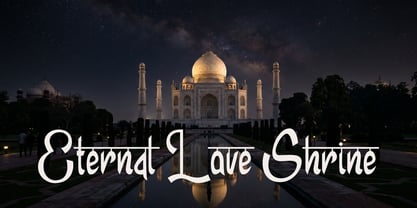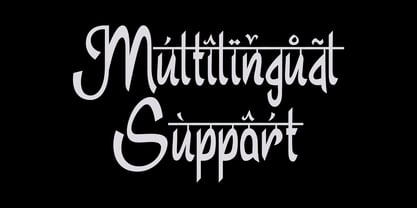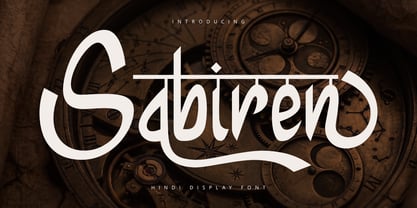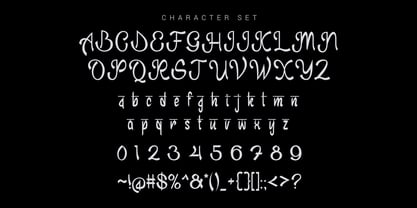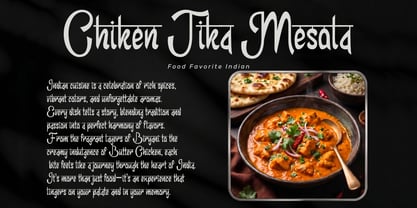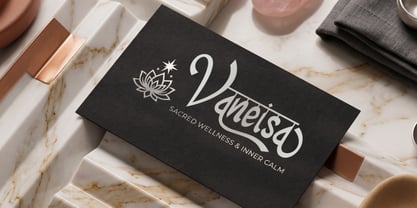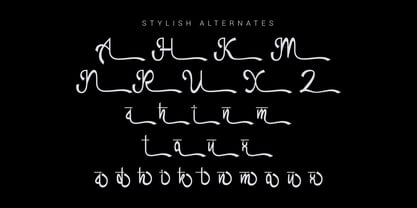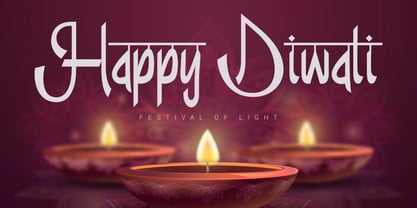
Sabiren
by Sealoung
The Sabiren Font Family was designed by Saiful Anwar and published by Sealoung. Sabiren contains 1 styles. More about this family
Sabiren - Hindi Display Font Sabiren is a Hindi display font designed to bring beauty, cultural character, and expressive style to your typography. Featuring distinctive Devanagari-inspired letterforms, smooth curves, and balanced shapes, Sabiren creates a visually appealing and artistic typographic presence. Who Should Use Sabiren? Sabiren is ideal for designers, creatives, and brands looking for a Hindi-inspired display font that brings cultural character and artistic beauty to their designs. Suitable For: Cultural and festival themed designs Posters and promotional graphics Logo and brand identity design Editorial headlines and creative layouts Packaging and product labels Social media graphics Website headers and digital design Decorative display typography If you need help, just write me! Thanks so much for checking out my shop!modern
Designers: Saiful Anwar
Foundry: Sealoung